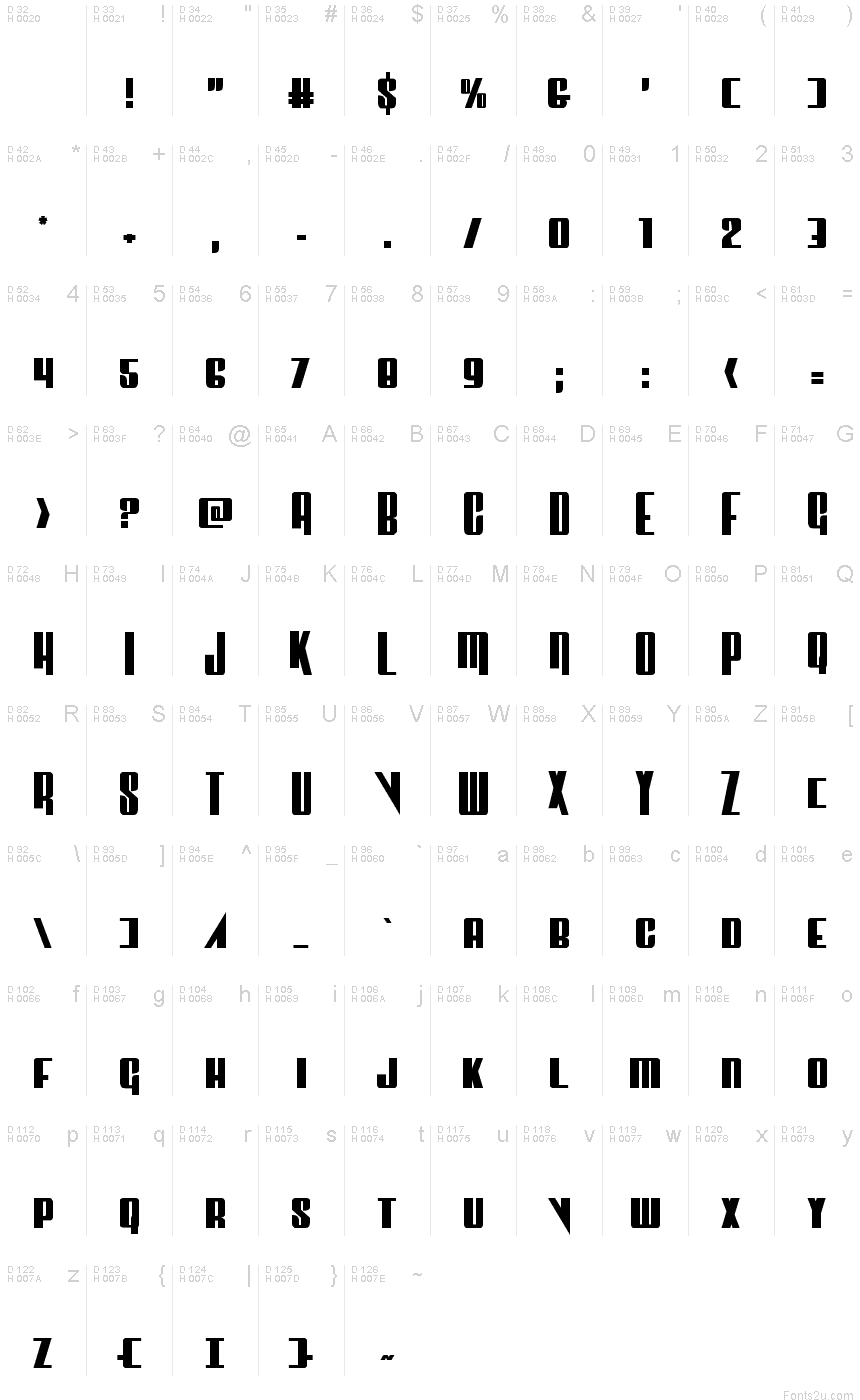
Vindicator, created in 2012 by Iconian Fonts, is a free futuristic retro display font with an imposing industrial build. Extremely condensed letters combine broad vertical strokes with narrow internal openings. Rounded outer corners and sharp diagonal cuts give the design a machine-tooled finish.
Science fiction and mechanical themes make it a strong fit for game branding and film title cards. Its compact silhouette also suits music posters and sports merchandise, especially when the lettering needs the force of a custom insignia. The angular details suggest armored vehicles, spacecraft panels, and high-tech equipment.
Vindicator